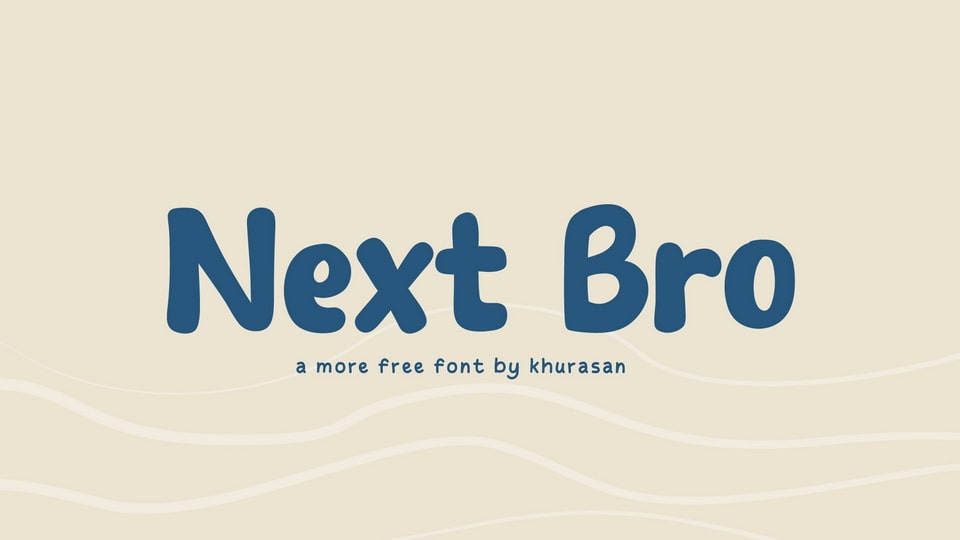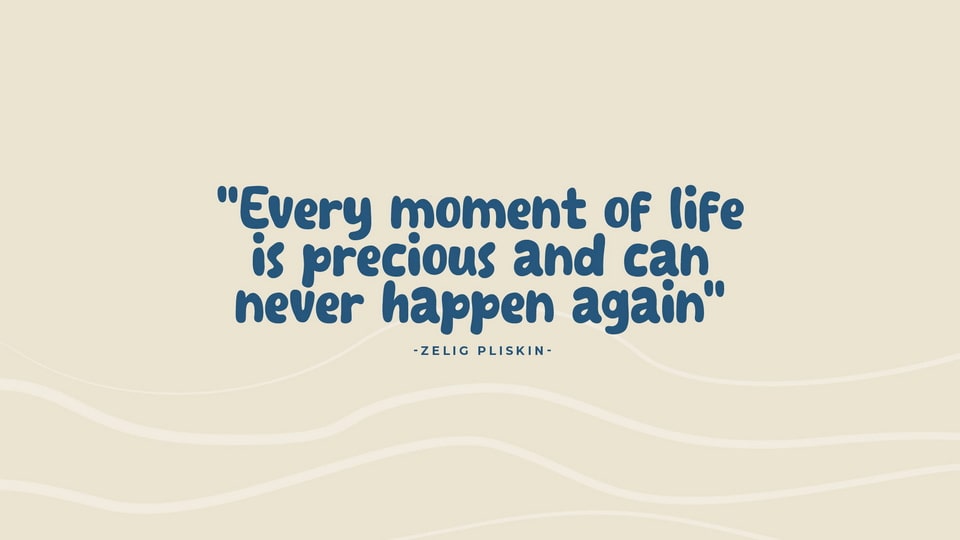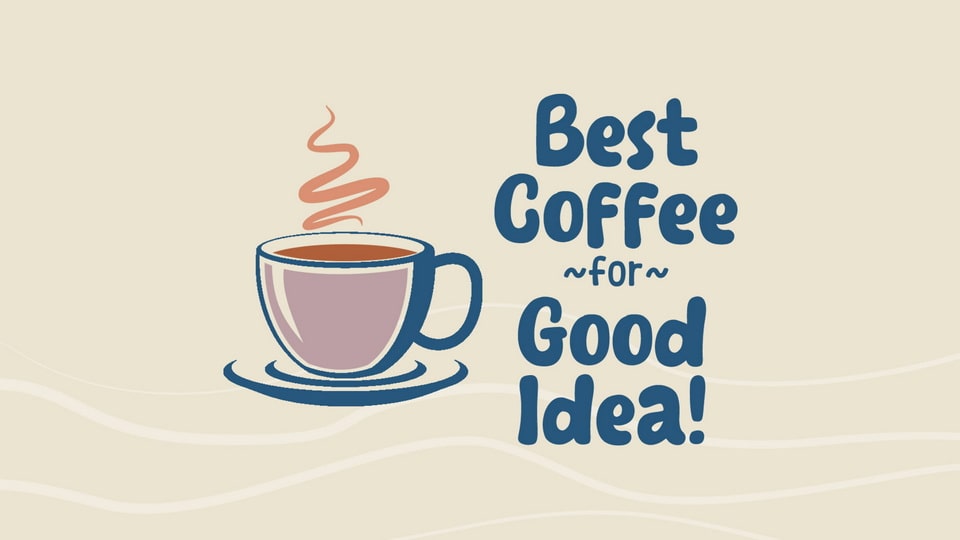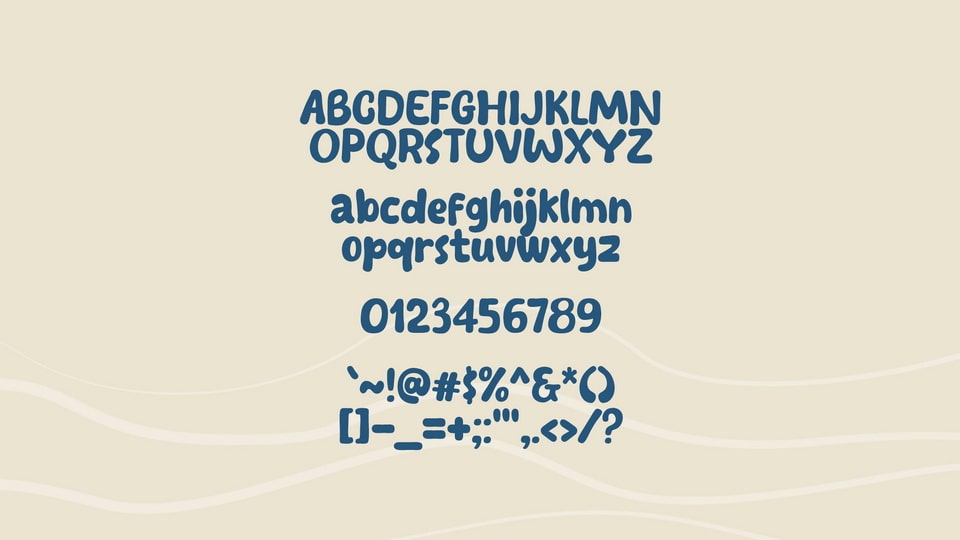
Next Bro is the font that captures the friendly and casual essence of comic book lettering. Each character is designed with a carefree, hand-drawn quality that radiates an air of approachability and humor.
Whether you’re crafting witty comic book captions, quirky children’s book illustrations, or branding materials that demand a touch of comic-inspired character, Next Bro font adds a dose of lightheartedness and charm to every letter.